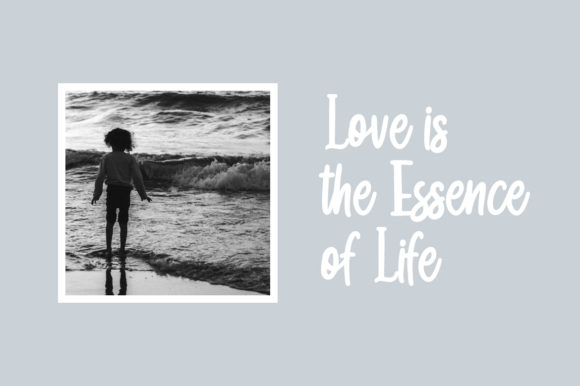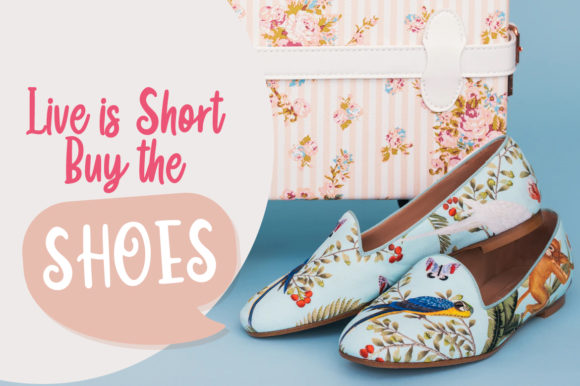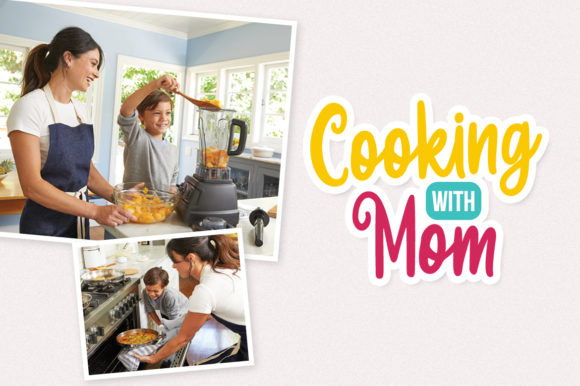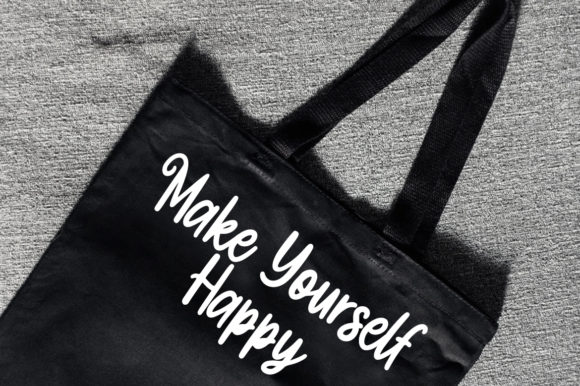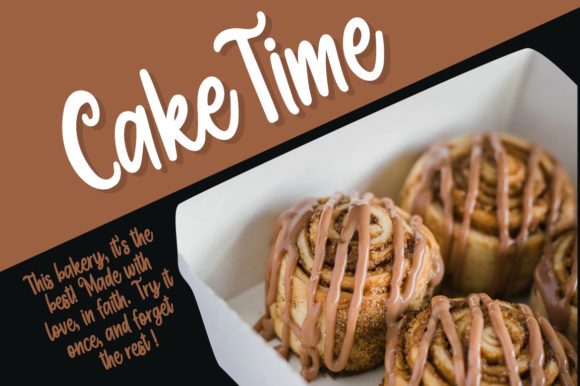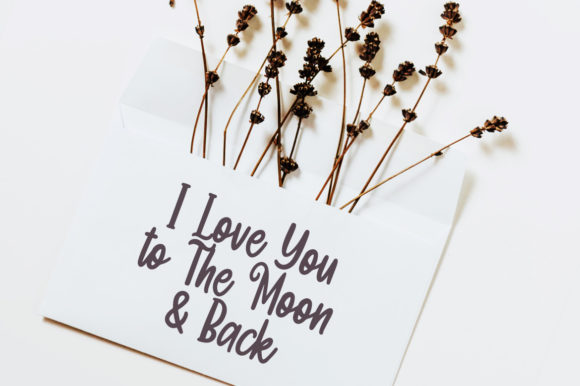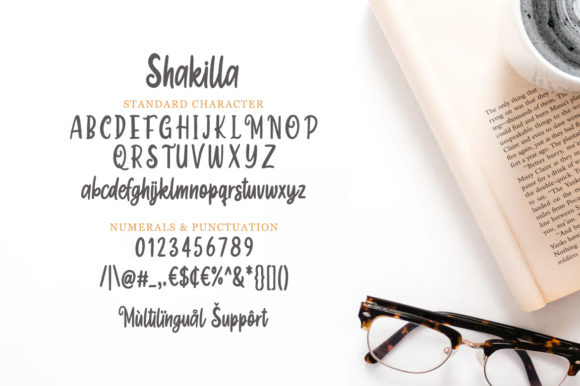
HomeScript FontsShakilla Font Script Fonts Shakilla Font FacebookXPinterestWhatsApp Shakilla Font Poster 2 Shakilla Font Poster 3 Shakilla Font Poster 4 Shakilla Font Poster 5 Shakilla Font Poster 6 Shakilla Font Poster 7 Shakilla Font Poster 8 Shakilla Font Poster 9 About Shakilla Font Shakilla is fresh, funky & fun. This monoline script will add a friendly feel to a wide range of designs! DOWNLOAD NOW People also explored Nabila Delight Font Angelia Script Font Play Life Ring Font The Snow Font Mister Boosty Font Bregedel Font View Vacation Font Dark Lunatic Duo Font Vasaggy Font 353 0 TagsShakilla Font Previous articleMeadows FontNext articlePersian Cotage Font LEAVE A REPLY Cancel reply Comment: Please enter your comment! Name:* Please enter your name here Email:* You have entered an incorrect email address! Please enter your email address here Website: Save my name, email, and website in this browser for the next time I comment. Personal Use Free Puisi Adinda Personal Use Free Read more about this font Fontmageddon Personal Use Free Read more about this font Barokah Personal Use Free Read more about this font Cline Personal Use Free Read more about this font BLOG Using Fonts in Digital Marketing: Tips to Strengthen Your Brand Identity In the realm of digital marketing, every visual element plays a crucial role in shaping a brand's identity, and fonts are no exception. The... To increase your work productivity, choose the most readable fonts. Free vs Paid Fonts: Why Investing in Premium Fonts Is Worth It Modern Sans-Serif Fonts That Brands Love in 2025